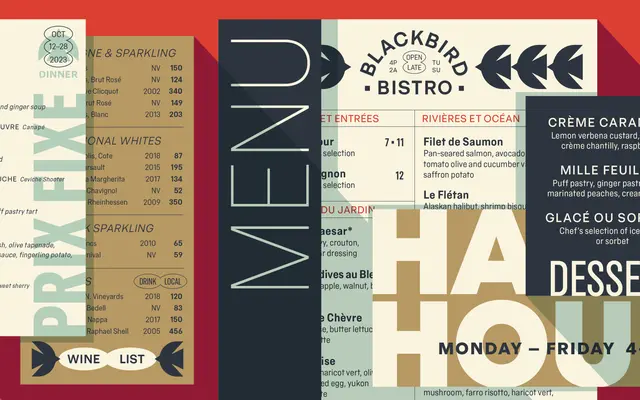
Blackbird
A 54-style grotesque sans spanning three widths and nine weights, designed to cover a wide range of typographic settings.
Three width variants — Condensed, Narrow and Standard — each run through nine weights from Thin to Black, with italics throughout, giving the family 54 styles in total. The clean, upright letterforms sit comfortably across editorial, branding and display applications without pushing a strong personality in any one direction. The range of widths makes it practical for situations requiring tight column setting alongside looser display work within the same visual system.
Listed under Sans by Fort Foundry; the specimen previews show a clean, upright grotesque with narrow and condensed widths across a broad weight range, consistent with a functional grotesque sans classification.